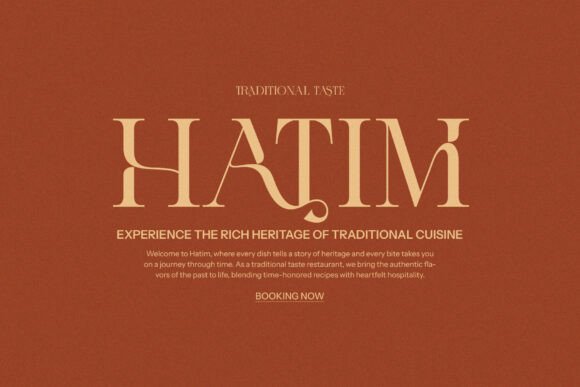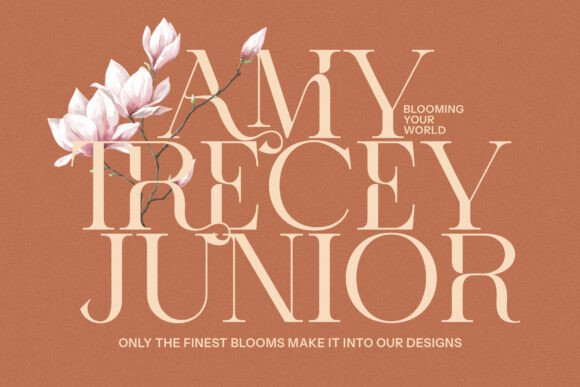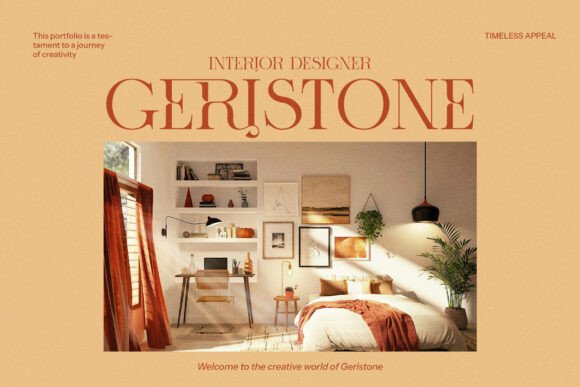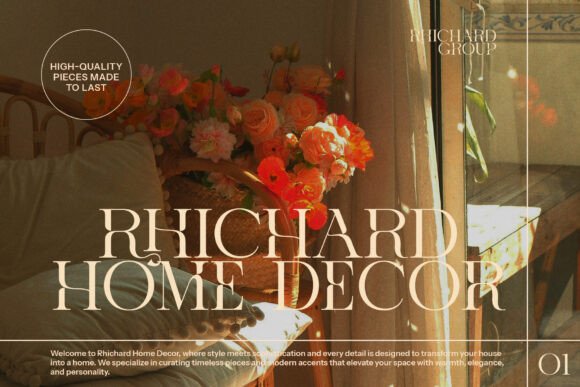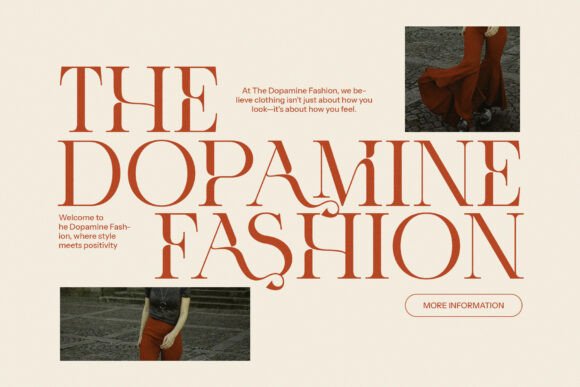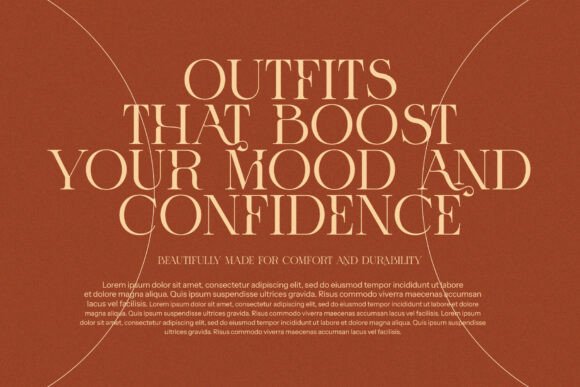
Introduction to Rifah Font
Rifah is a striking and contemporary serif typeface that blends elegance with individuality.
Designed for those who seek a distinct and refined look, Rifah is perfect for a wide range of creative projects Its timeless serif structure is coupled with modern, clean lines, creating a harmonious balance between tradition and innovation.